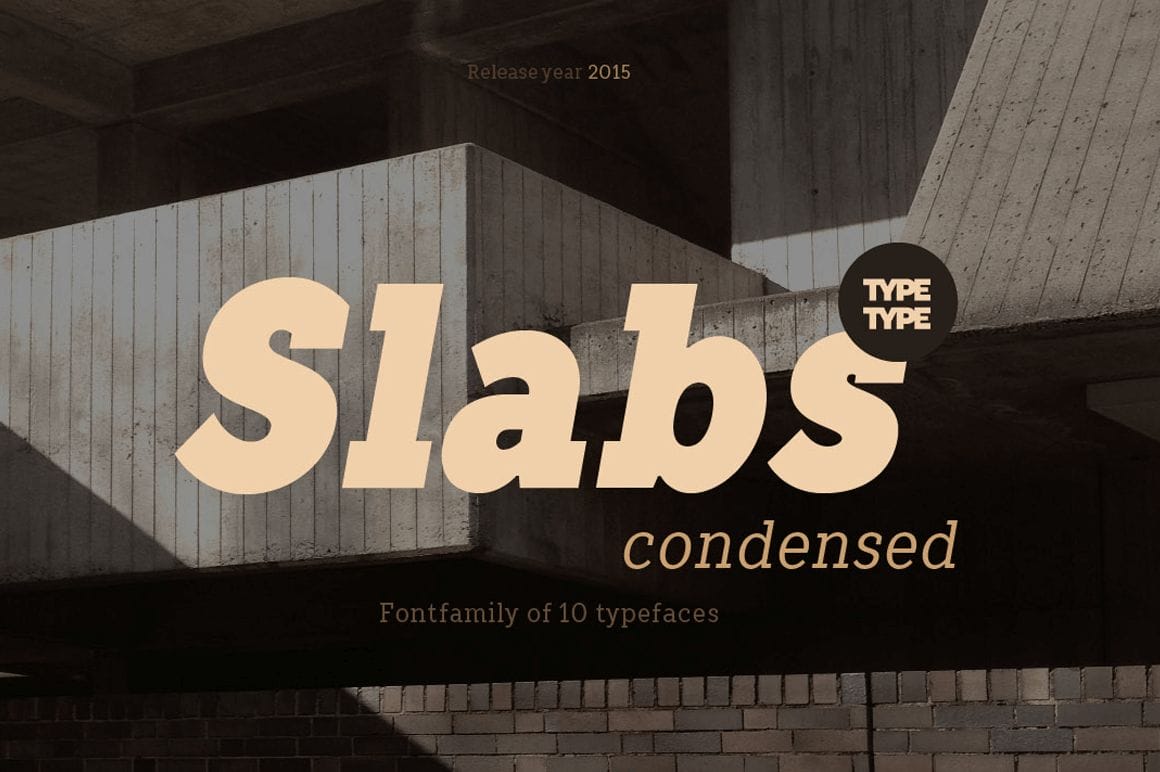
Perfect for design presentations, as well as powerful headlines, the Slabs Condensed Font Family is an amazing typeface collection. Each of the 5 unique weights ranging from Thin to Black are provided in both Regular and Italics style for a total of 10 different typefaces. Whether you’re whipping up logos or food packaging designs, Slabs Condensed is one big family you can count on!
• A condensed version of the TT Slabs Font Family, TT SLabs Condensed was created for strong headlines and design presentations.
• Work with 5 different font weights including: Thin, Light, Regular, Bold and Black.
• Each weight is available in regular and italics styles.
• Play around with 400+ glyphs for each of the family’s fonts.
• A great typeface to use for designing food packaging, newspapers, logos, shop decorations, theatrical scenery and more.
• Multiple languages are represented including Basic Latin/English Letters, Central Europe, Baltic Languages, Turkish, Cyrillic, Euro, Romanian and West European Diacritics.